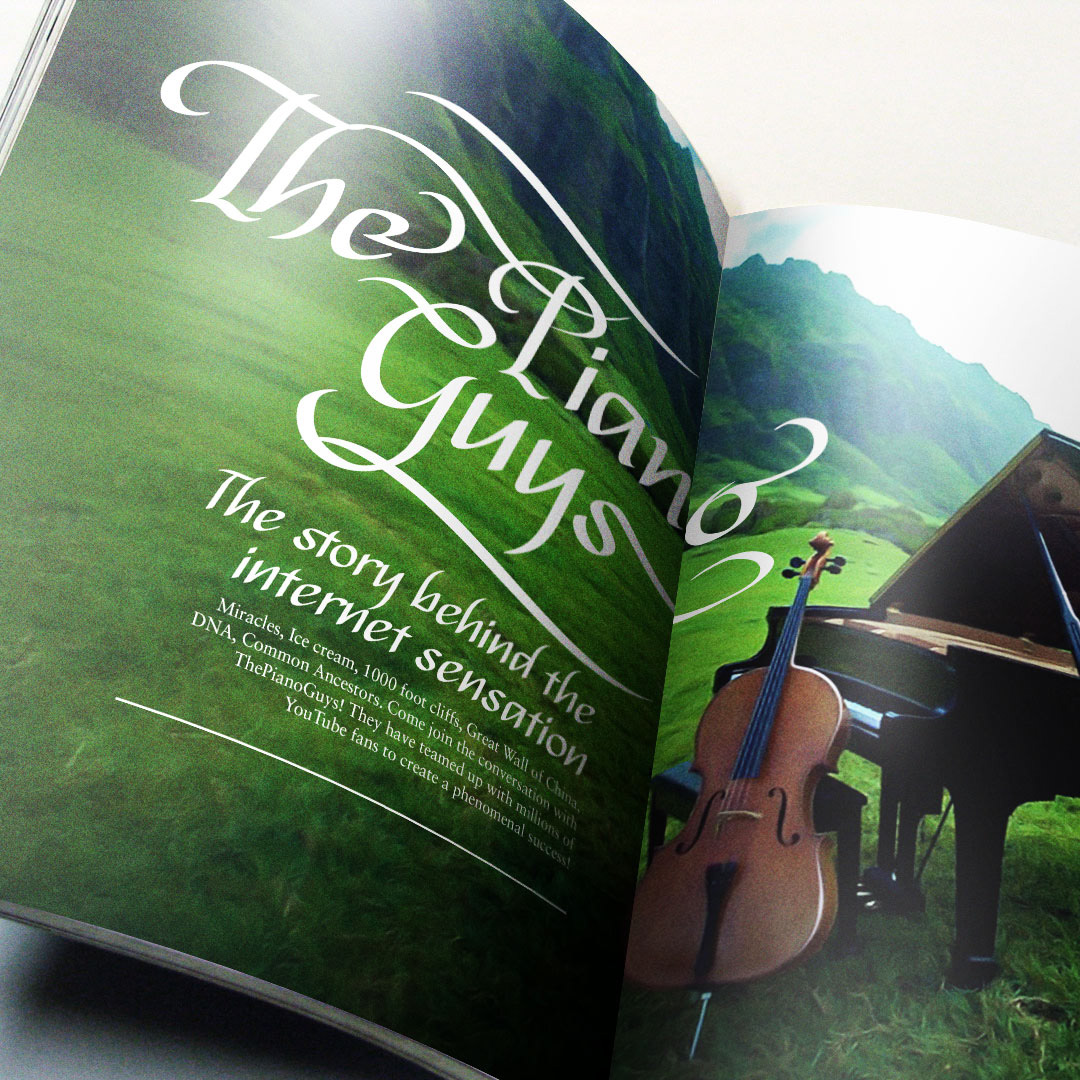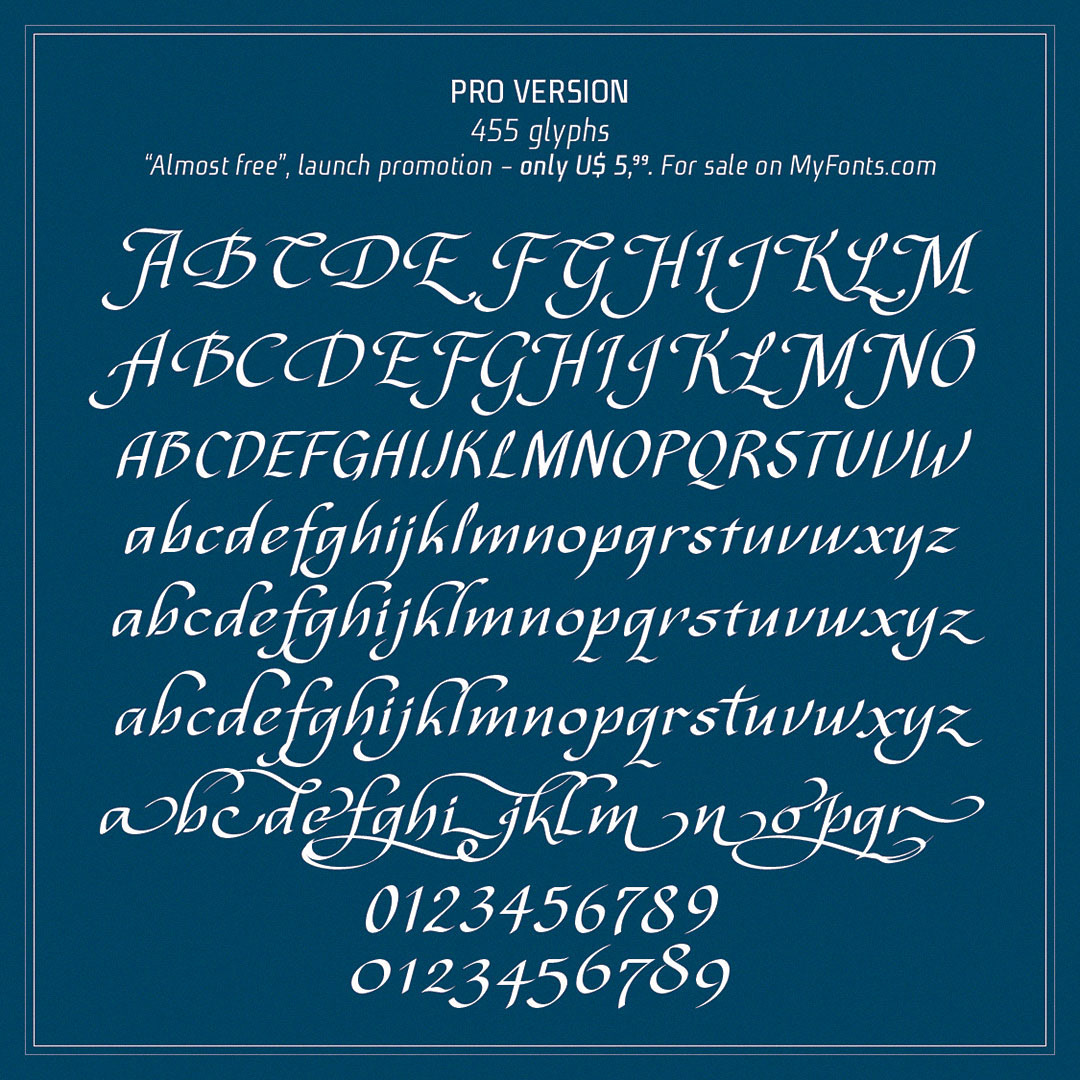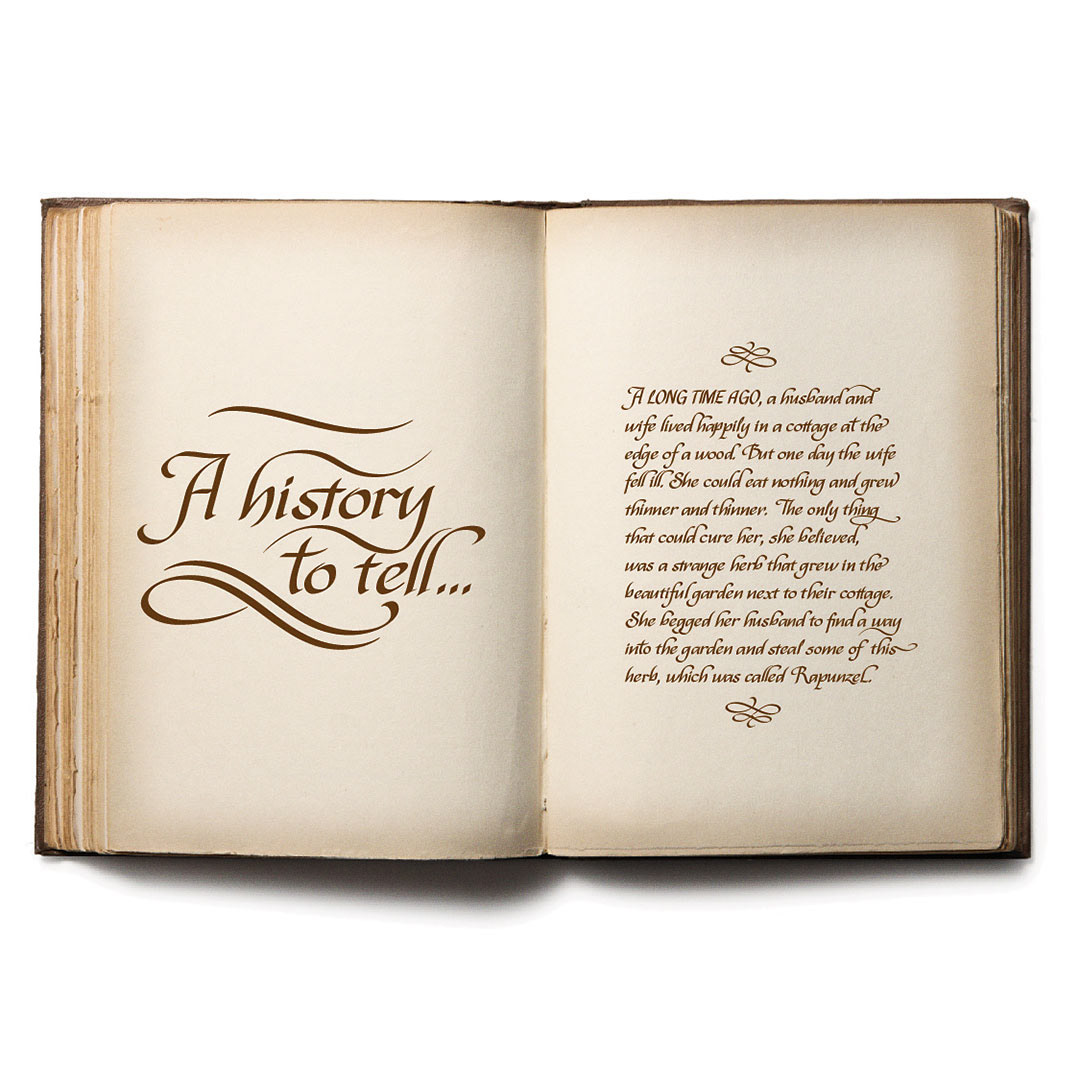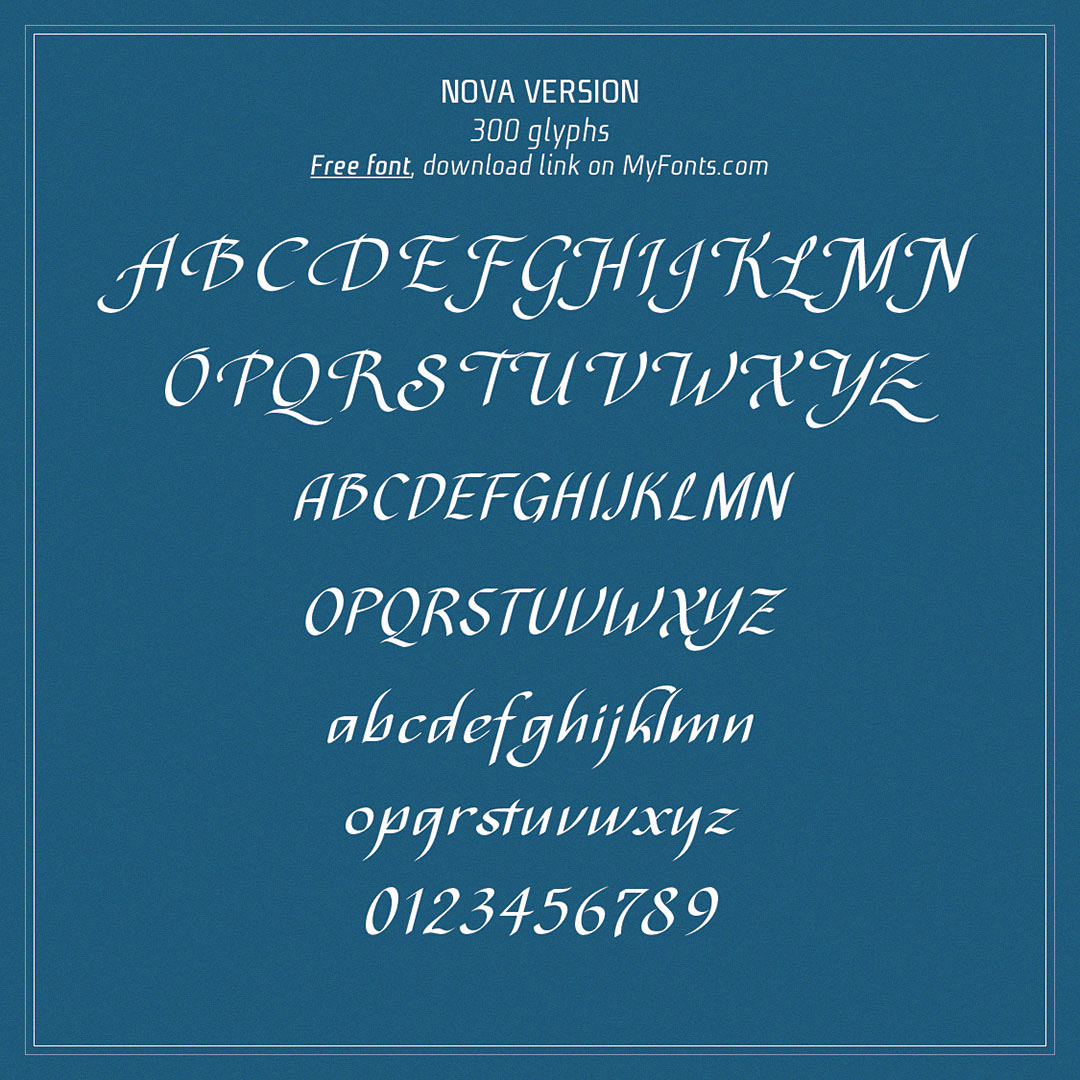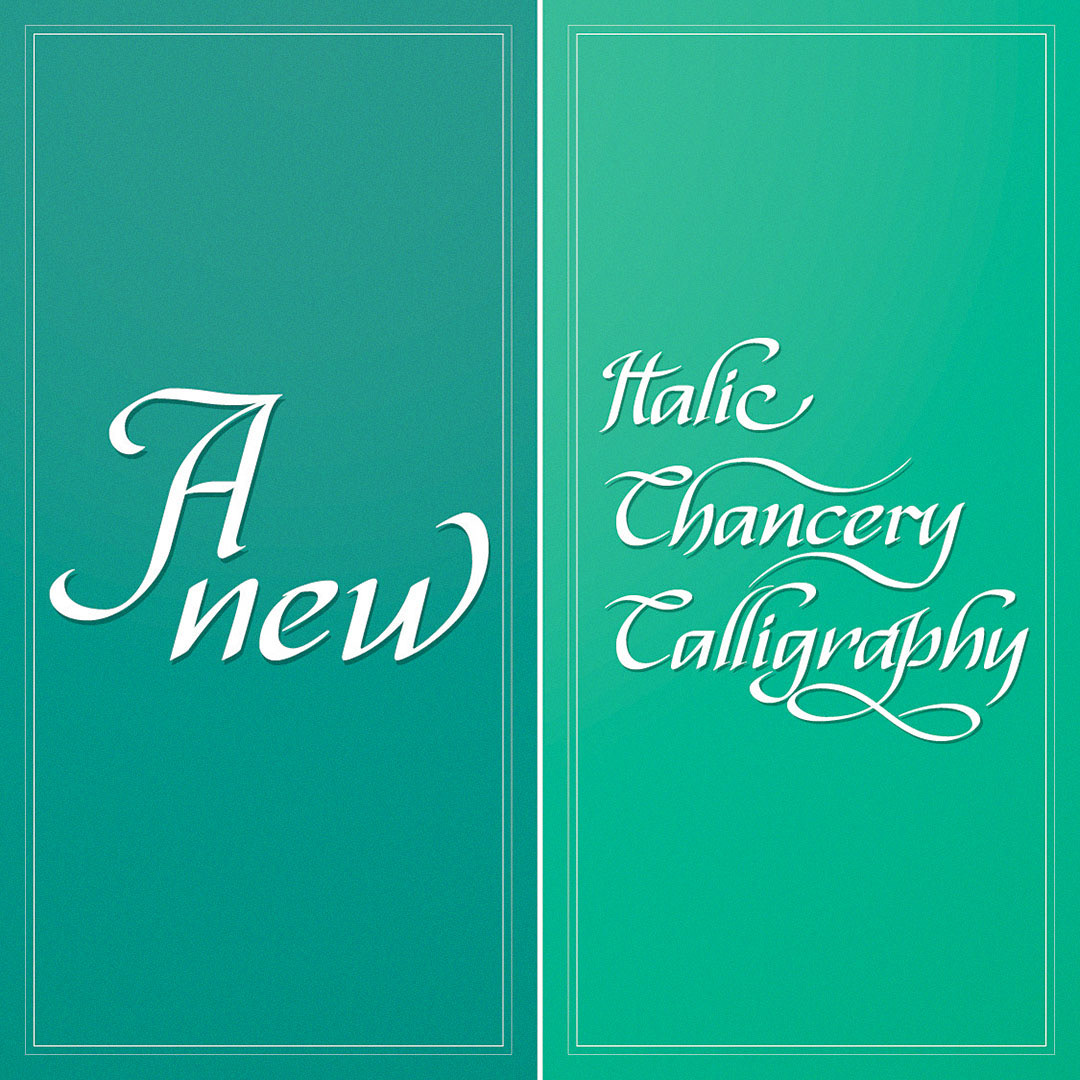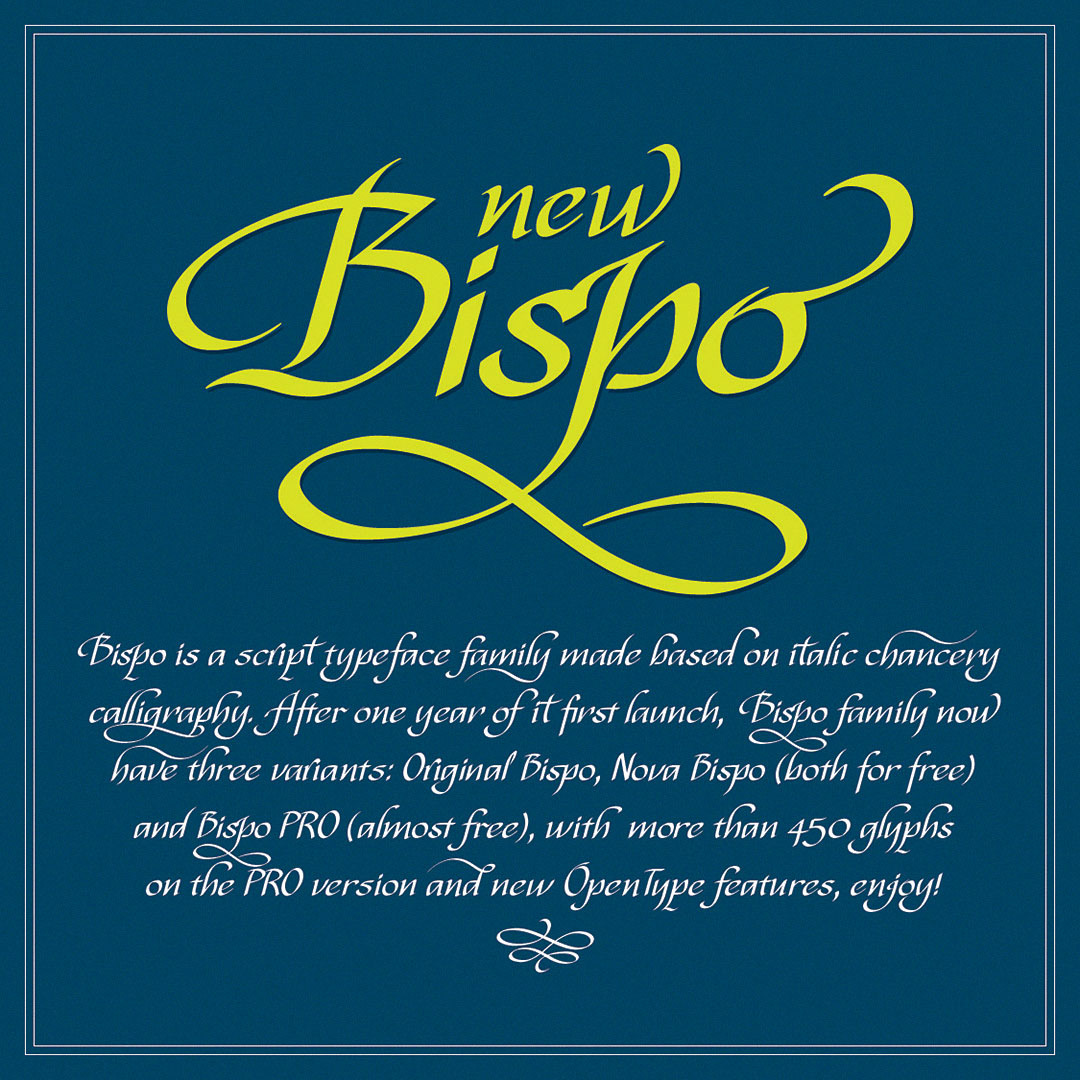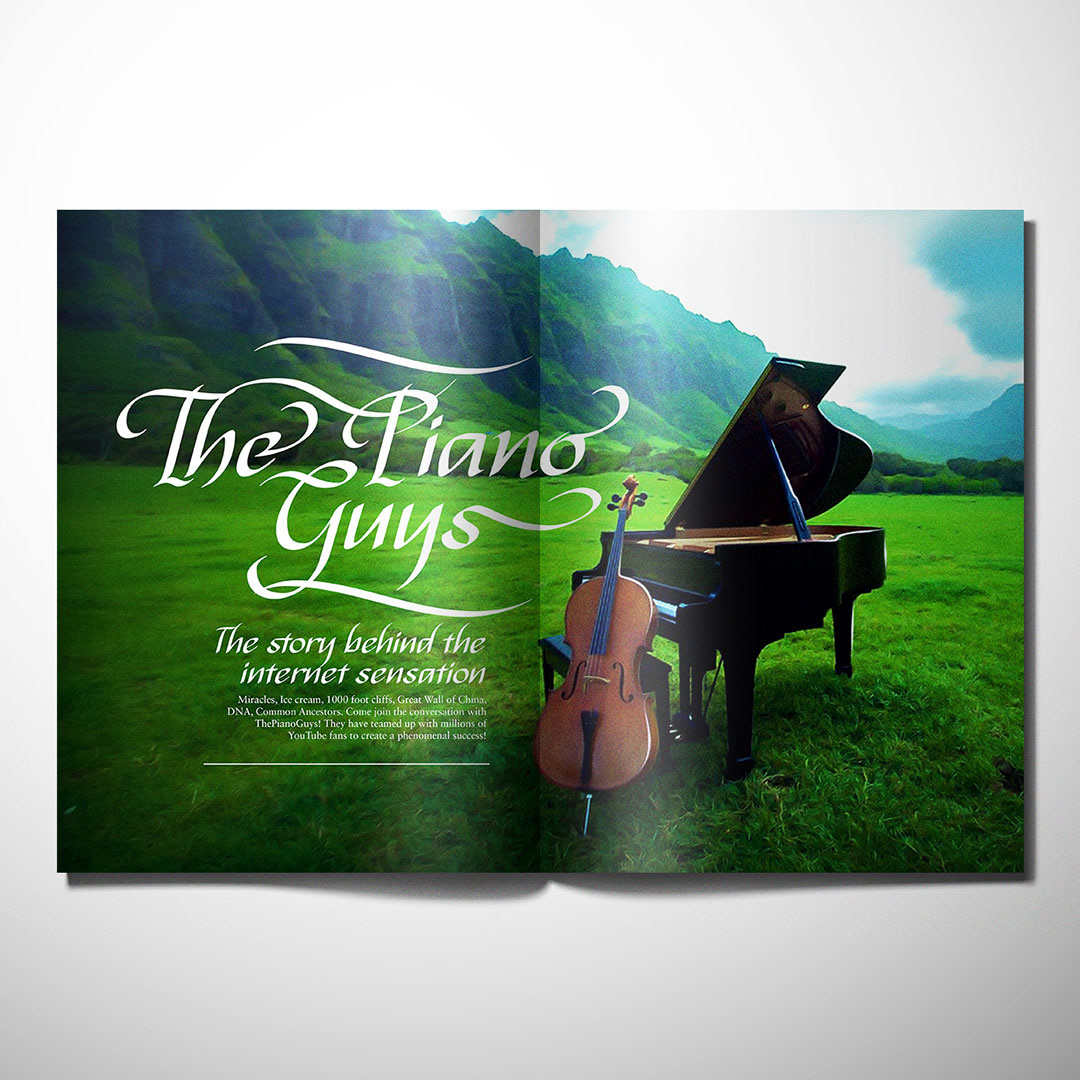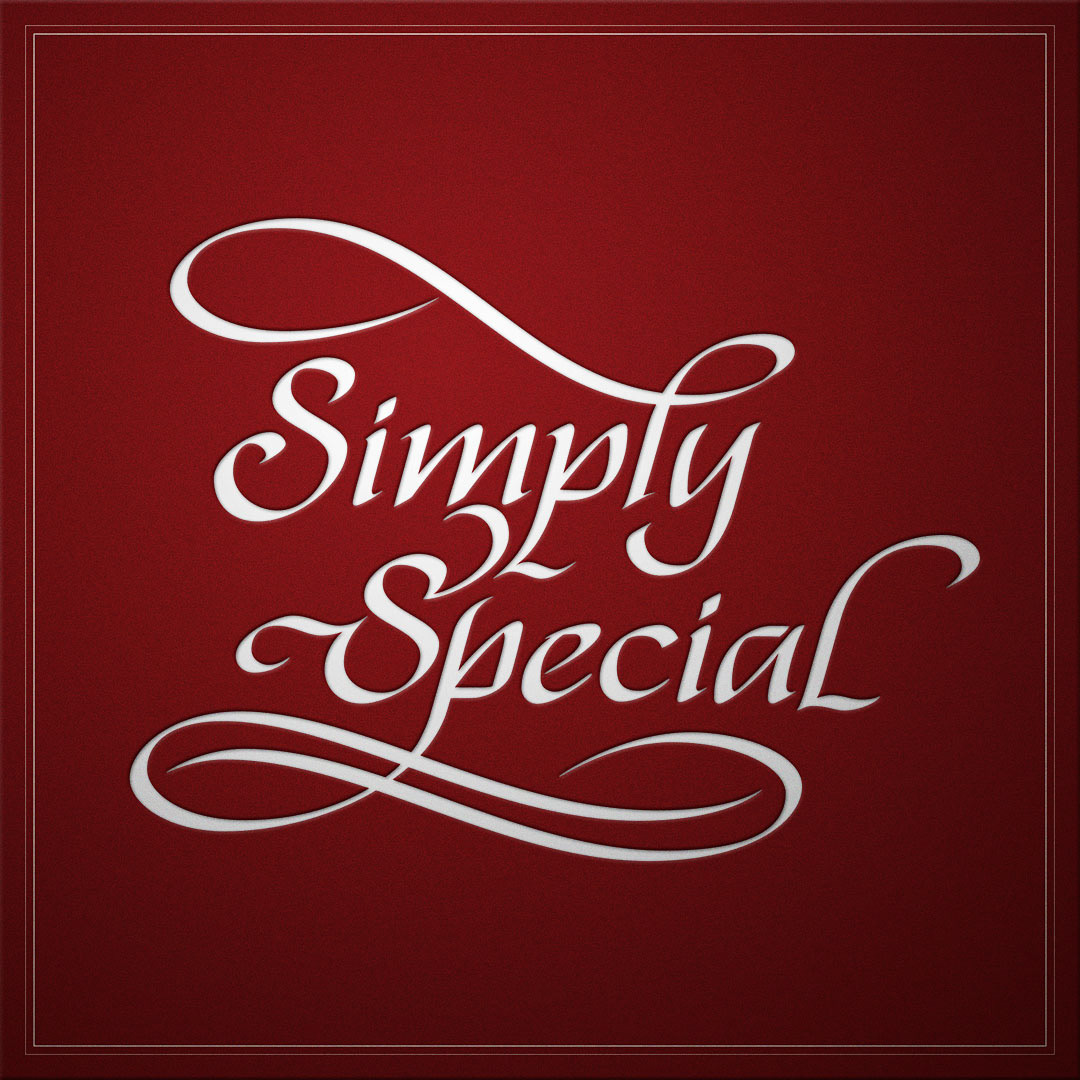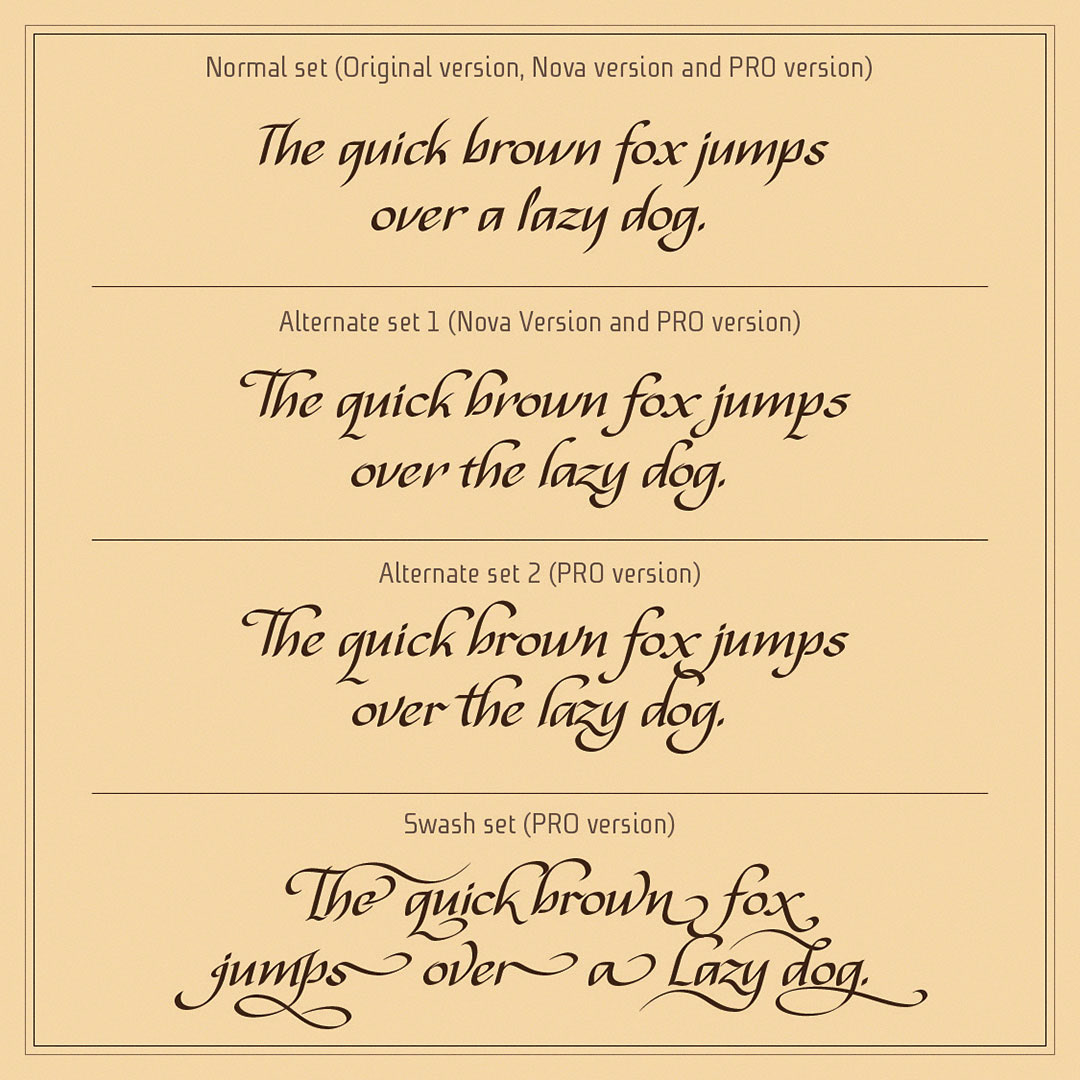
Bispo Typeface – Script Typeface Family
Bispo is a script typeface family inspired by italic chancery calligraphy, combining classic elegance with contemporary functionality. Originally released as a single style, the project evolved to celebrate its first anniversary with two new versions: Bispo Nova — a free version accessible to all — and Bispo PRO, a fully-featured professional font with over 450 glyphs and advanced OpenType features, including stylistic alternates, ligatures, and swashes.
Created for both personal and commercial use, Bispo offers versatility and flair for branding, editorial, and expressive typography projects.
Promotional posters
(Using Bispo PRO version)